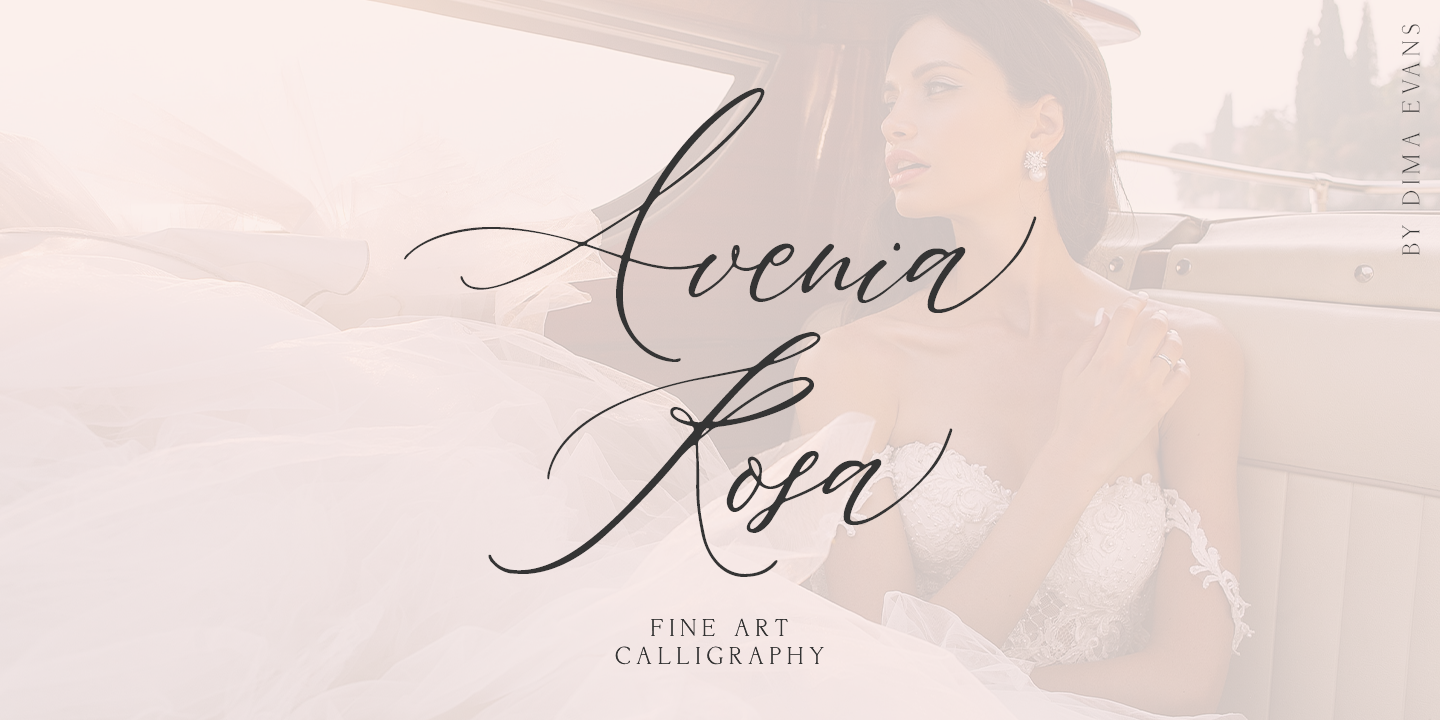
This elegant typeface excels in various sophisticated applications including luxury hotel branding, high-end retail identities, architectural firm presentations, premium real estate marketing, upscale restaurant menus, fashion magazine mastheads, cosmopolitan lifestyle brands, and executive stationery designs. The Avenia Font embodies metropolitan elegance with its refined letterforms that stroll through designs like a tree-lined boulevard in an exclusive neighborhood.
What makes this font truly exciting is its ability to convey both urban sophistication and timeless grace through perfectly proportioned characters that feel cultivated yet approachable. The meticulously designed letters feature subtle contrast, refined curves, and harmonious spacing that create an atmosphere of understated luxury. Its distinctive personality combines cosmopolitan polish with welcoming warmth, creating typography that speaks to discerning audiences who appreciate quiet excellence.
The Avenia Font family includes avenue-inspired variations: Thin, Light, Regular, Medium, Semi Bold, Bold, and Black weights, each with corresponding italics. Every family member maintains the signature elegant character while providing designers with comprehensive tools for creating sophisticated brand systems and refined communications.